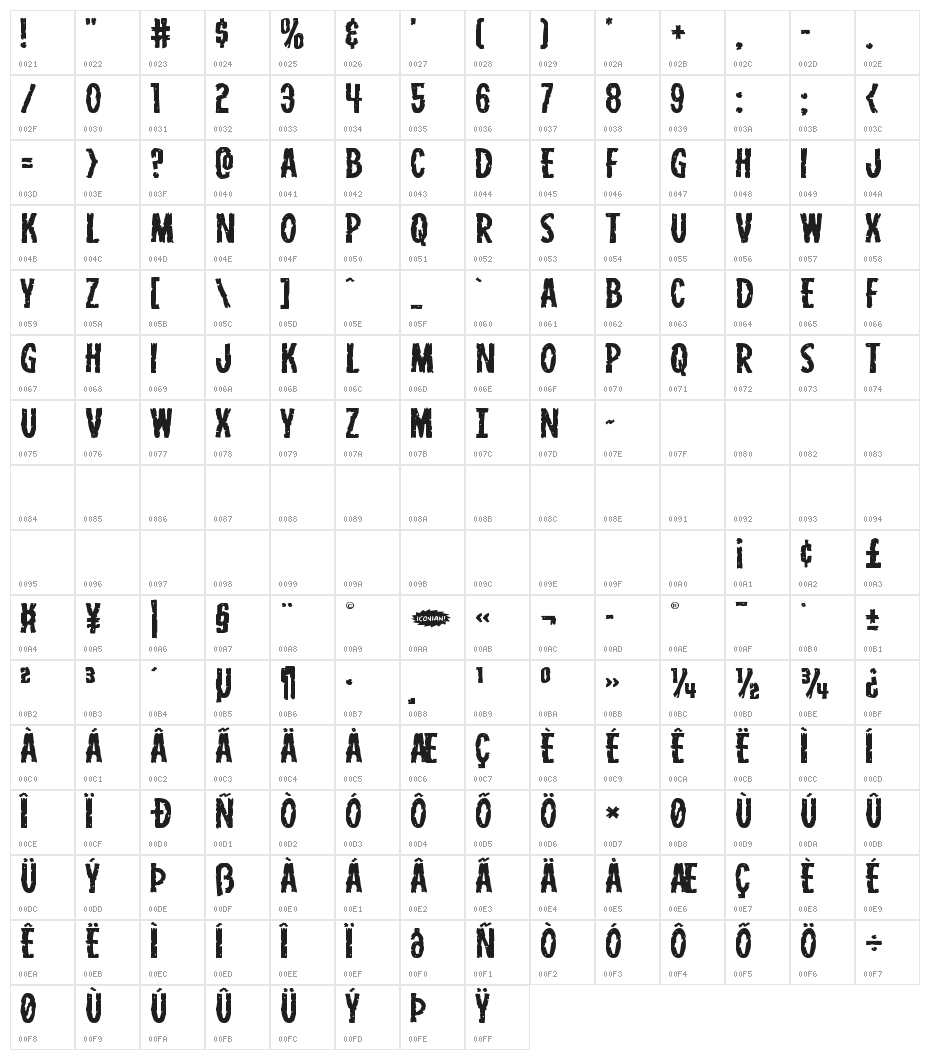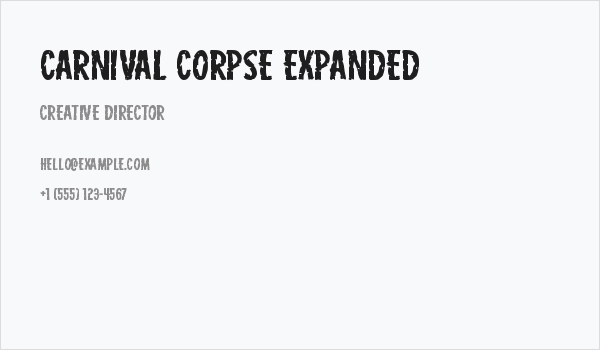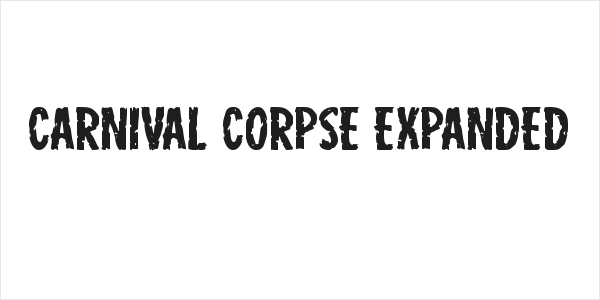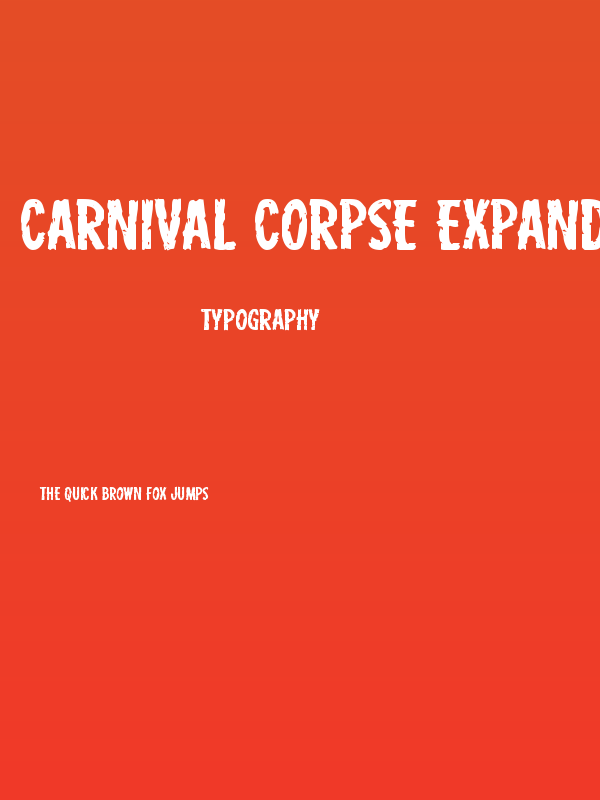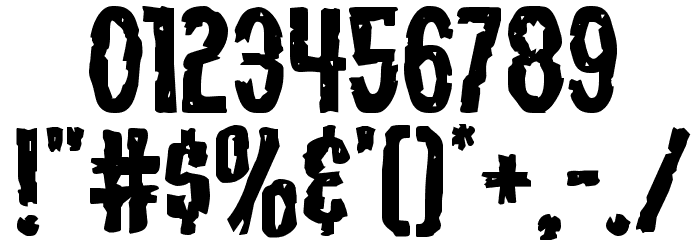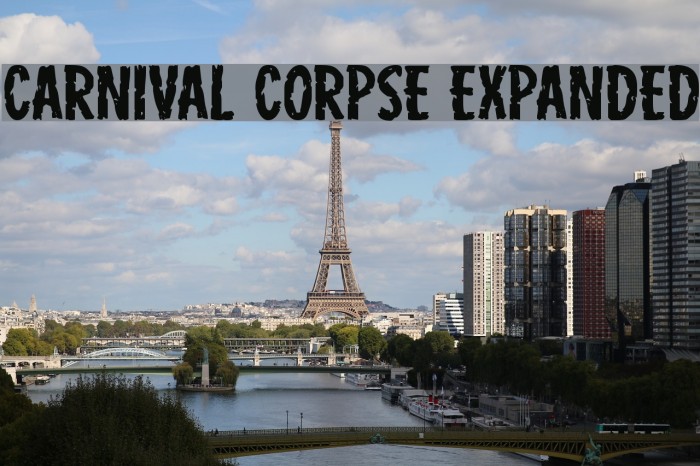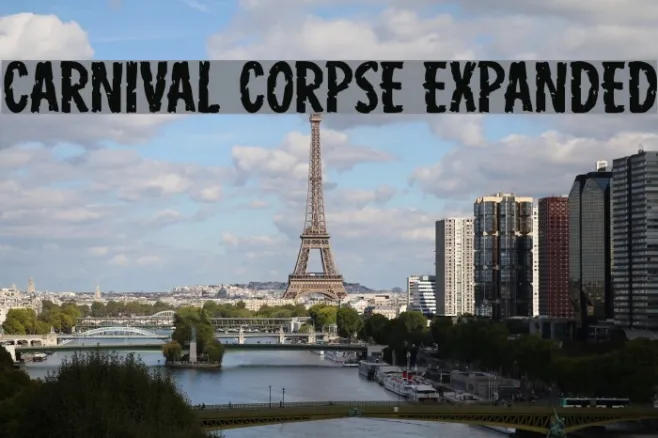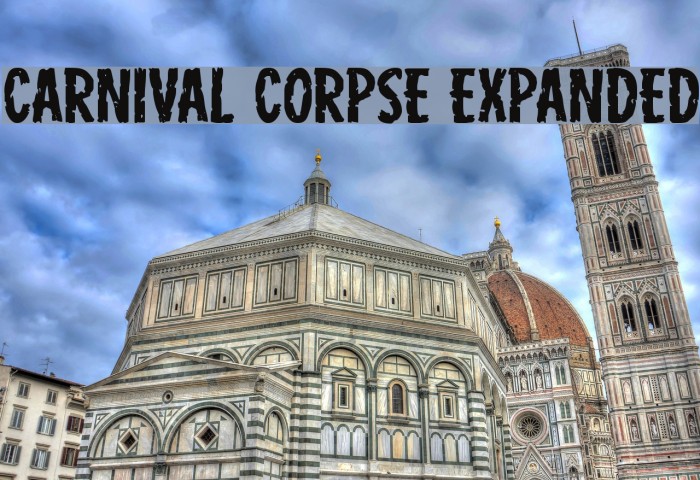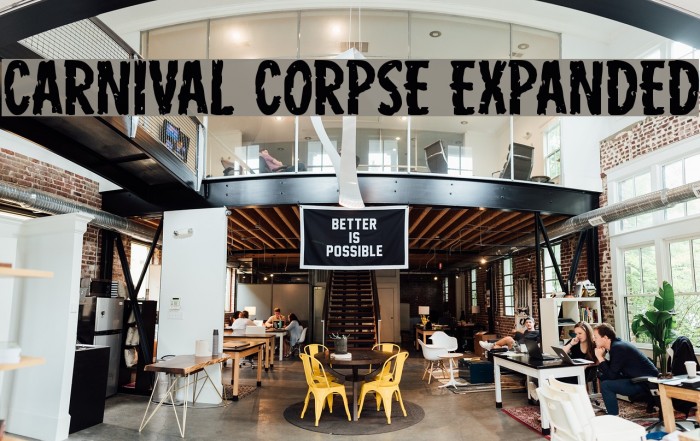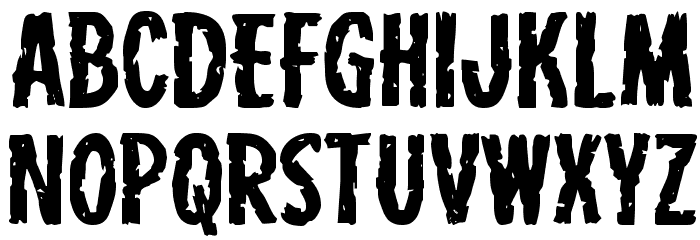
Carnival Corpse Expanded Font
Carnival Corpse Expanded Description
This font features a bold and distressed style, reminiscent of a vintage carnival or horror theme. The characters are heavily textured, giving them a worn and rugged appearance. Each letter and number is uniquely crafted with irregular edges and a slightly chaotic form, adding to its dramatic and eye-catching presence. The font is designed to stand out, making it ideal for projects that require a strong visual impact. Its expanded width and high contrast between thick and thin strokes enhance its boldness and make it suitable for creative and unconventional designs.
| Overall Style | Vintage, Decorative |
| Use Case | Headlines, Posters, Branding |
| Proposed Projects | Ideal for horror-themed posters, Halloween invitations, vintage carnival flyers, and edgy branding projects. |